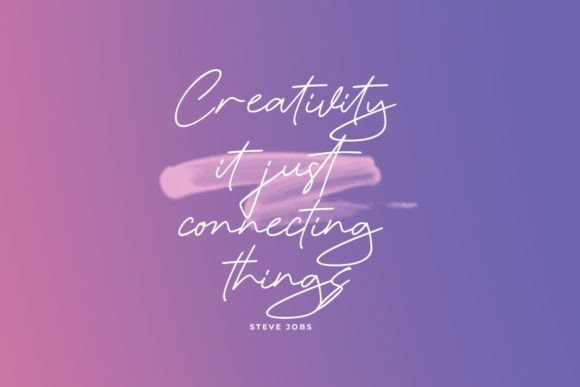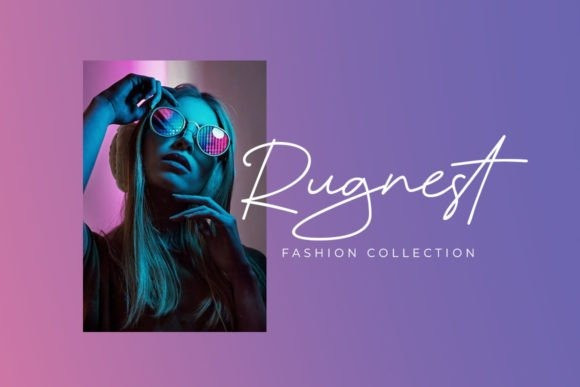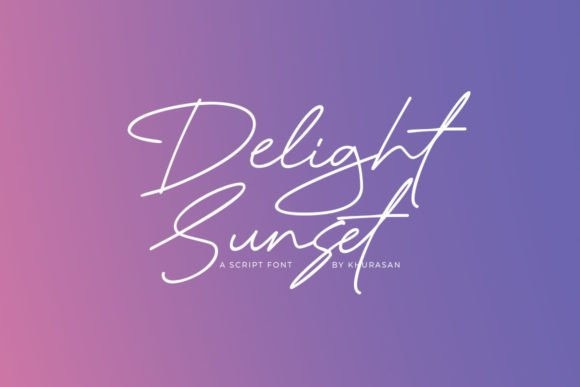
Delight Sunset Font
Delight Sunset Font is a clean, stylish, modern, and elegant script font perfect for posters, logos, magazines, book covers, banners, and many more! Get this amazing font, and use it to create lovely designs. It can easily be matched to an incredibly large set of projects, so add it to your creative ideas and notice how it makes them stand out!